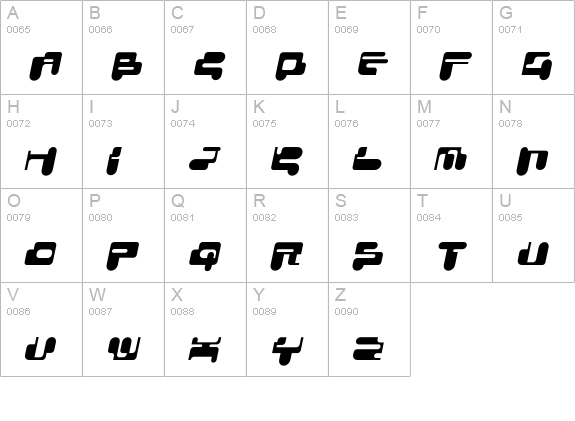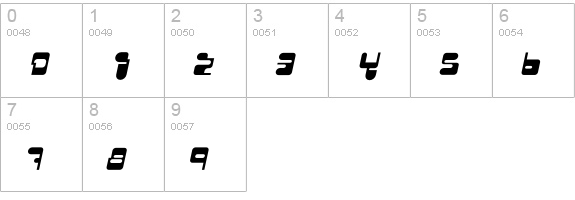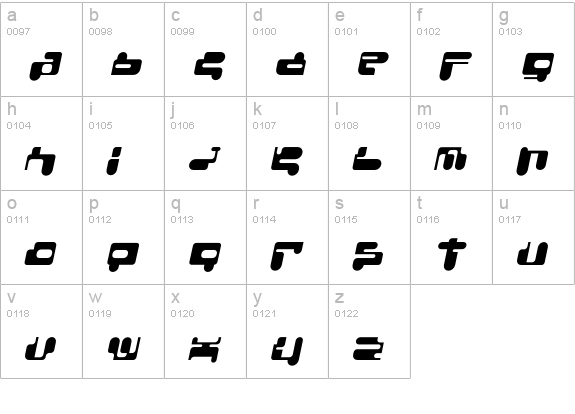
ConsoleRemix-Italic Font Details
ConsoleRemix-Italic is a distinctive, italic variant in the ConsoleRemix typeface family \xE2\x80\x94 well suited to design and typography projects.
ConsoleRemix-Italic font is a stylish and modern typeface that brings a sleek and sophisticated look to any design project. Its italicized design adds a touch of elegance, making it perfect for creating eye-catching headlines, titles, and branding materials. The sleek lines and sharp angles of ConsoleRemix-Italic font give a futuristic and tech-savvy vibe, making it ideal for use in gaming, technology, and science-related projects. Best of all, ConsoleRemix-Italic font is available for free download at FontsMarket.com. This means you can easily add this versatile and unique font to your collection without any cost. Whether you're a designer looking to elevate your work or a hobbyist searching for a new font to play with, ConsoleRemix-Italic font is a fantastic choice that won't break the bank. Download it today and start incorporating this modern and stylish font into your projects!